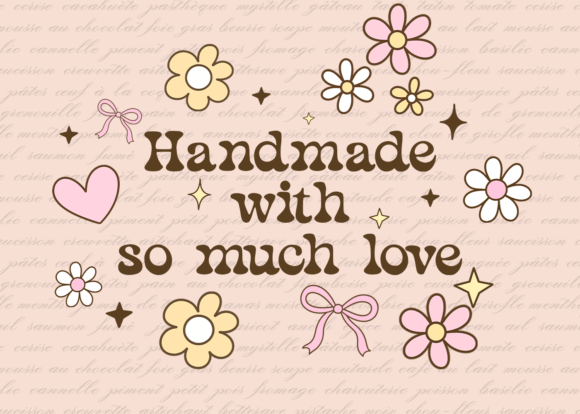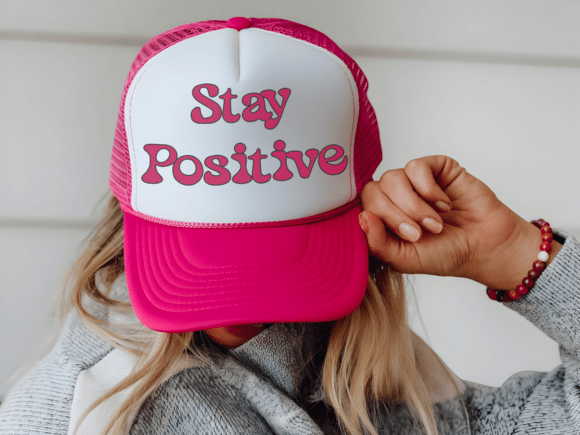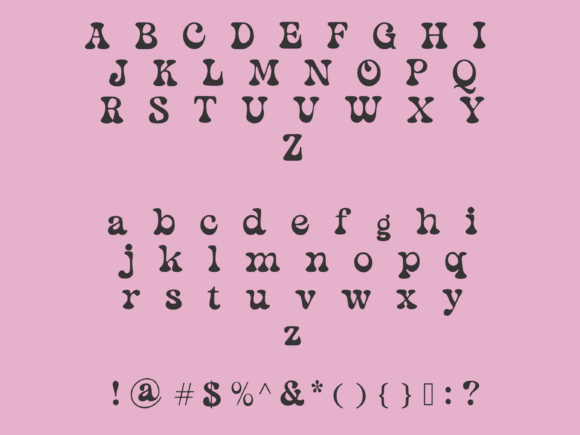
Groovy Zuleria Font: The Ultimate Retro Display Font for Modern Design
Are you looking for a font that embodies the carefree spirit of the disco era, with a modern twist? Look no further than Groovy Zuleria, a bold, expressive groovy font that’s perfect for designers and crafters who want to add a touch of nostalgia to their work. In this article, we’ll dive into the world of Groovy Zuleria, exploring its unique features, design inspiration, and uses.
A Retro Revival with a Modern Edge
Groovy Zuleria is a bold, expressive groovy font that’s inspired by the iconic designs of the 1960s and 1970s. With its thick, undulating curves, exaggerated letterforms, and rhythmic flow, this typeface channels the fun, carefree vibe of disco posters, flower-power signage, and vinyl album art. But what sets Groovy Zuleria apart is its modern edge – a fresh take on classic design that’s perfect for today’s design scene.
Design Features and Inspiration
Each character in Groovy Zuleria is sculpted with purpose, featuring dramatic swashes, flowing terminals, and wide letter spacing. These design elements evoke a nostalgic warmth, while staying fresh and relevant in modern design. The font’s bold, expressive curves and exaggerated letterforms make it perfect for headlines, titles, and short texts. The flowing terminals and swashes add a touch of elegance and sophistication, making Groovy Zuleria suitable for a wide range of design applications.
Uses and Applications
Groovy Zuleria is a versatile font that’s perfect for a variety of design projects, including:
- Fashion branding: Add a touch of glamour and sophistication to your fashion label with Groovy Zuleria’s bold, expressive curves.
- Event posters: Create eye-catching posters for concerts, festivals, and other events with Groovy Zuleria’s bold, attention-grabbing design.
- Social media graphics: Make your social media graphics pop with Groovy Zuleria’s fun, carefree vibe.
- Packaging design: Add a touch of nostalgia to your packaging design with Groovy Zuleria’s retro-inspired curves and swashes.
Why Choose Groovy Zuleria?
So why choose Groovy Zuleria over other fonts? Here are just a few reasons:
- Unique design: Groovy Zuleria’s bold, expressive curves and exaggerated letterforms make it a standout in any design.
- Versatility: Groovy Zuleria is perfect for a wide range of design applications, from fashion branding to event posters.
- Modern edge: Groovy Zuleria’s fresh take on classic design makes it perfect for modern designers and crafters.
Groovy Zuleria is a bold, expressive groovy font that’s perfect for designers and crafters who want to add a touch of nostalgia to their work. With its unique design features, versatility, and modern edge, Groovy Zuleria is the ultimate retro display font for modern design. Whether you’re branding a fashion label, designing event posters, or crafting social media graphics, Groovy Zuleria delivers style and swagger.
Get Ready to Groove with Groovy Zuleria